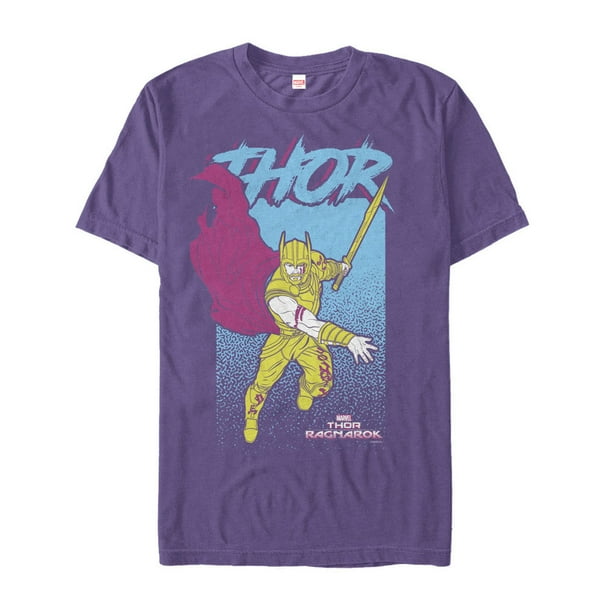
Thor Ragnarok Font Style
Designed by iconian fonts modi thorson is a font family with 15 fonts.
Thor ragnarok font style. The font used for the thor part of the film title is dameron regular created by iconian fonts. If you do not want to download and install the font but just like to create simple text logos using thor. Fontspace si estas leyendo esto.
Direction only strongly left to right glyphs. Font based in the logo marvel thor. Esta tipografia la cree yo con base al logotipo sin color ragnarok y copie las letras mayusculas de dameron y lo puse en esta fuente.
Looking for thor fonts. Hold the shift key and select the four letter faces that make up the word thor right click and select group then change the first gradient colour to yellow which is 255 255 0 in rgb values change the second gradient colour to a darker orange of 255 140 0 hold the alt key then click and drag the gradient swatches to make an alternating series of colours between yellow and orange then tidy them up by evenly spacing them out change the gradient angle to 90 degrees so the bands flow. Font based in the logo marvel thor.
Ragnarok is a 2017 american superhero film based on the marvel comics character thor produced by marvel studios and distributed by walt disney studios motion pictures. Dameron is a perfect show font cherished ones of 25 fonts with various fancy patterns paying homage to define gradient halftone laser and many others. The font used for the thor part of the film title is dameron average created with the aid of iconian fonts.
La fuente dameron copyright no fue modificada con ningun nombre. Dameron is a super display font family of 25 fonts with various fancy styles such as outline gradient halftone laser and etc. Ragnarok is a 2017 american superhero movie established on the surprise comics persona thor produced by way of marvel studios and allotted by means of walt disney studios movement pix.
The font used for the movie title in the poster is very similar to modi thorson. About thor ragnarok font. The font used for the thor a part of the movie title is dameron regular created with the aid of iconian fonts.
Font based in the logo marvel thor.